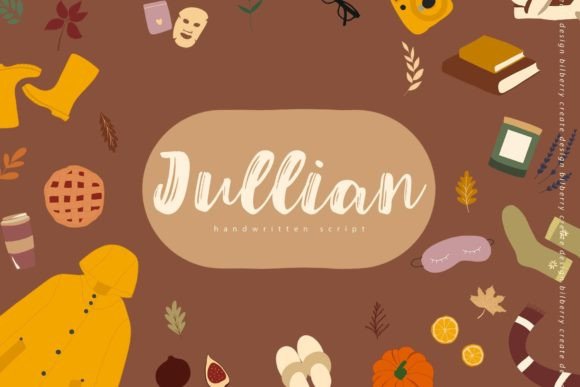
Introducing Jullian Font - The Gateway to a Whimsical Design Universe!
In a world where digital creations reign supreme, your website address is your gateway to success. It's the first impression you make, the digital handshake that sets the tone for your entire brand. And what better way to make a statement than with a font that exudes fun, playfulness, and a touch of whimsy? Enter Jullian Font - a creation by BilberryCreate, designed to add an incredibly joyful touch to your designs.
Picture this: a font that dances across your website address like a playful ballerina, captivating the attention of visitors from the very first moment. Its handwritten style brings a personal touch, as if each letter was lovingly crafted just for you. With Jullian Font, your website address transforms into an invitation to explore a world of creativity and imagination.
This beautiful handwritten font isn't just for show - it's a versatile performer that complements a wide range of creative endeavors. Whether you're designing logos, crafting social media posts, or creating eye-catching marketing materials, Jullian Font is your trusty companion, adding a touch of magic to each project.
But don't just take our word for it. Unleash your imagination and witness how Jullian Font elevates your designs to new heights. Let its whimsical strokes bring a smile to your face and your audience's hearts.